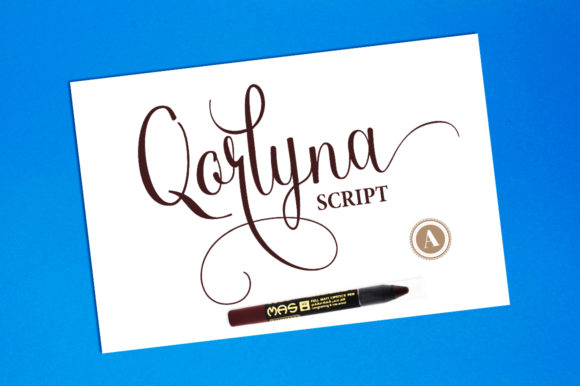
Qorlyna Font
In a world where visual aesthetics reign supreme, Qorlyna Font emerges as a striking and elegant handwritten masterpiece, ready to elevate your design projects to new heights. Born from the creative genius of Aqeela Studio, this script font is a symphony of sophistication and charm, inviting you to embrace the art of beautiful typography.
As you explore the depths of Qorlyna's character set, you'll discover a captivating ensemble of letters, each meticulously crafted to reflect the essence of timeless elegance. The sweeping strokes and graceful curves evoke a sense of refined artistry, transforming your words into visual poetry. Whether you're a seasoned designer or just starting your creative journey, Qorlyna will guide you towards typographic excellence.
Imagine the allure of your wedding invitations, adorned with Qorlyna's enchanting script. Each letter, a delicate brushstroke, intertwines seamlessly to create a symphony of romance and elegance. Your guests will be captivated by the artistry, feeling the love and care infused within every word.
Or envision the impact of Qorlyna on your branding materials. Its sophisticated aura exudes professionalism and attention to detail, making your business stand out from the crowd. Every letterhead, brochure, and social media post will radiate a sense of refinement, leaving a lasting impression on your clients.
The beauty of Qorlyna extends beyond its visual appeal. This versatile font adapts effortlessly to a myriad of design styles, from classic and vintage to modern and contemporary. It seamlessly complements both playful and formal designs, allowing you to express your unique creative vision.
With Qorlyna at your fingertips, the possibilities are endless. Unleash your imagination and let the flowing lines of this script font guide you towards typographic masterpieces. Whether you're designing logos, posters, social media graphics, or anything in between, Qorlyna will elevate your work to new heights of sophistication and elegance.